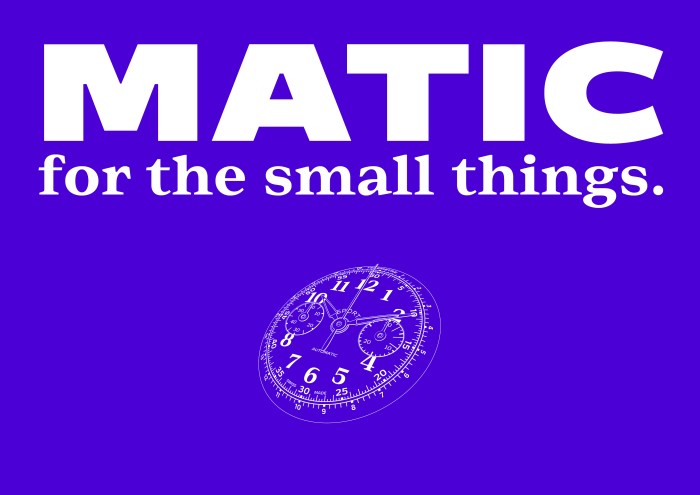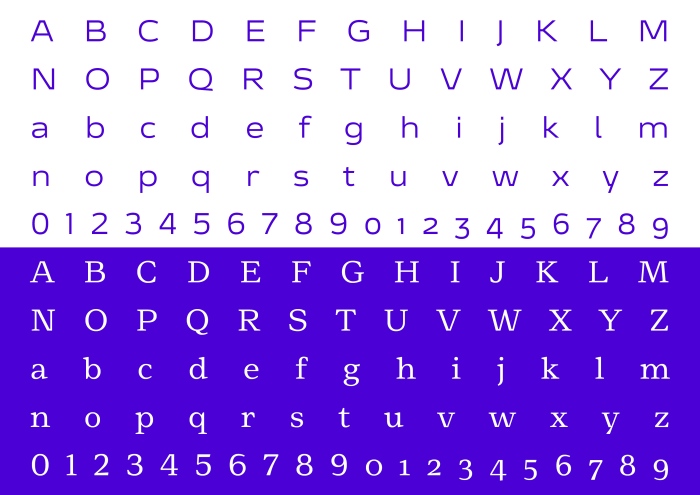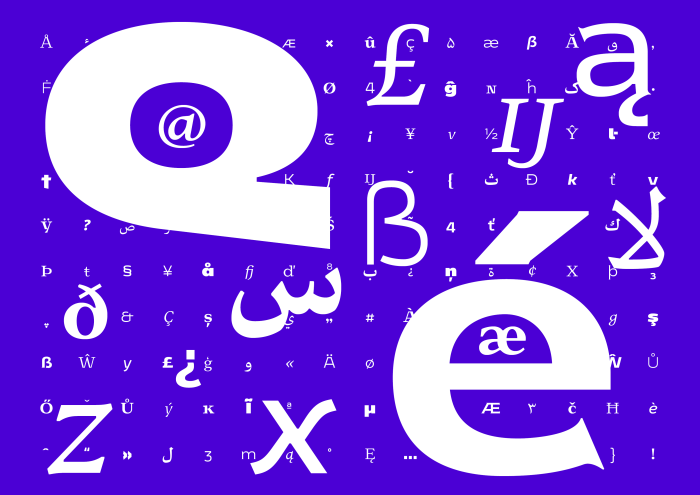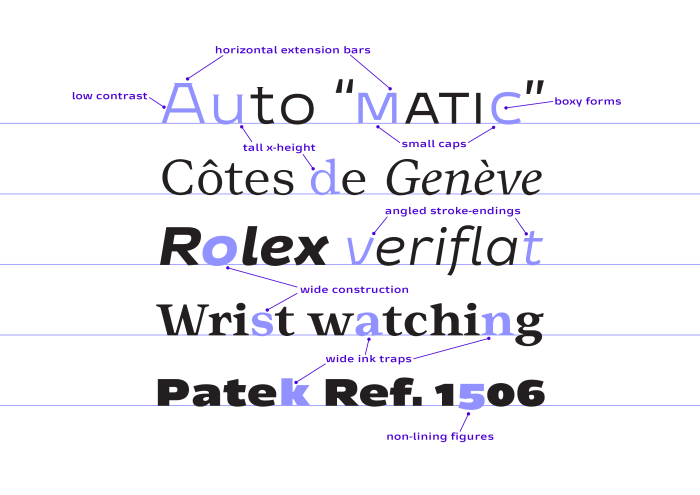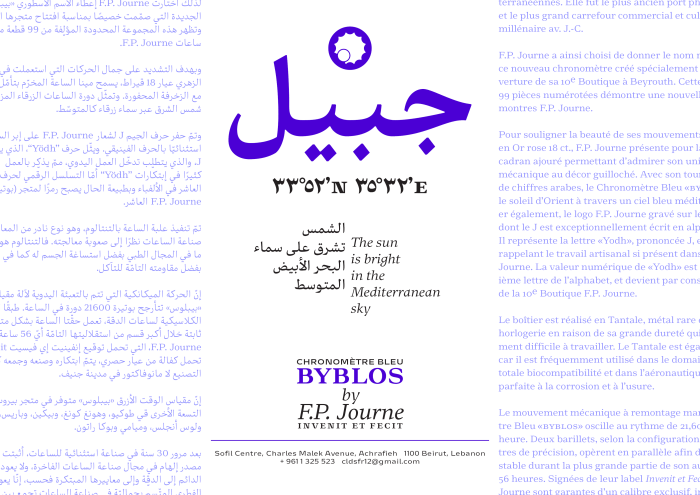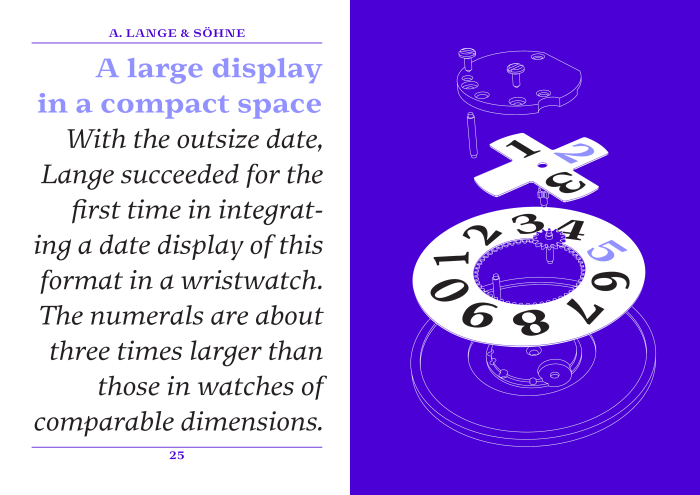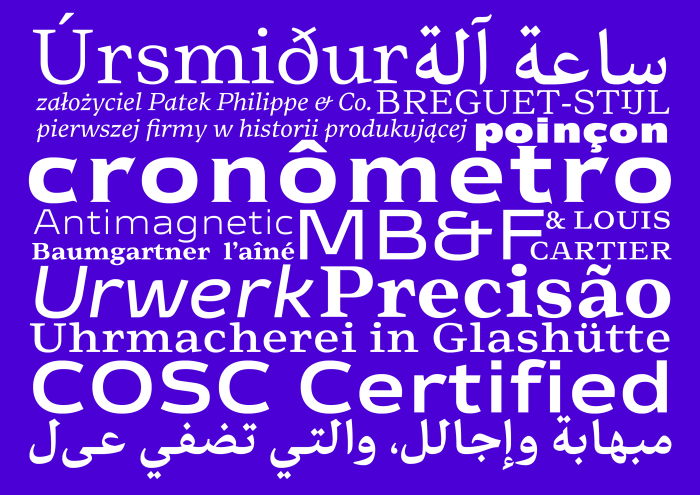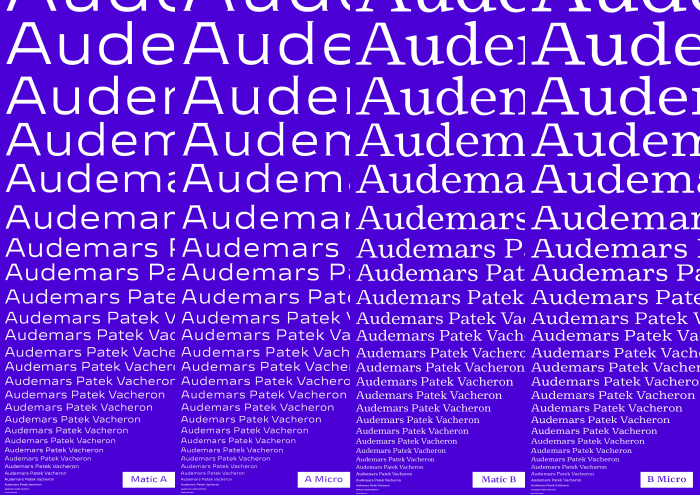
Matic is a multi-script type family that finds its inspiration in the typography of vintage wrist watches. The family is made up of two styles: Matic A uses wide, boxy letterforms with a low contrast and tall x-height. Matic B tones down both the width and the boxiness of its sans-serif partner, but only marginally. Both styles include a set of upright optical weights for extra small settings as well as accompanying italics. A version of Matic A appears in Gerard Unger’s book Theory of type design.